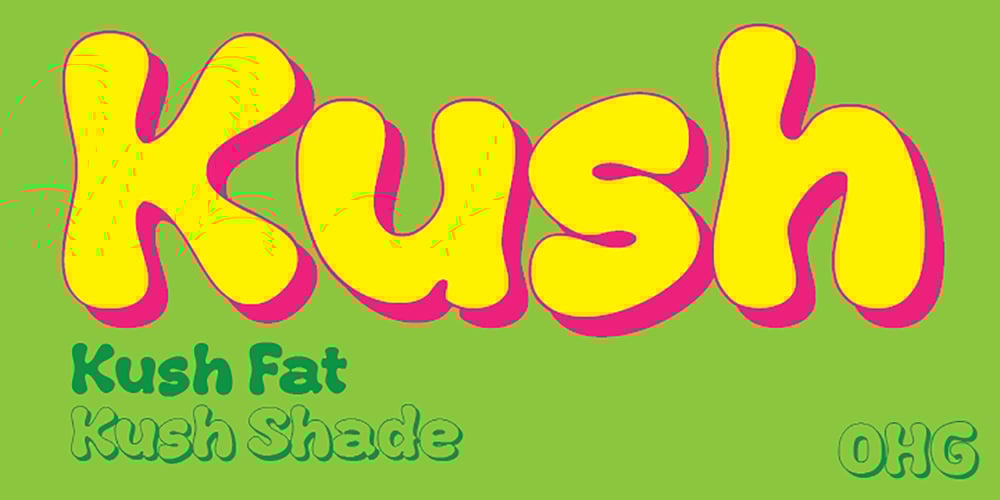
Kush
Kush font
Kush Font Family was designed by Russell A. McGorman and published by Our House Graphics. Kush contains 2 styles and family package options. Kush is what happens when you let your fonts sit around watching cartoons and eating cake and ice-cream all day�When their vectors are freed from all constraints and allowed to follow their bliss. Kush has filled its insides to just the other side of contentment and comes to you on a sugar high and with a head full of Looney Tunes. And… It�s two ply! A two-layered display face from Our House Graphics with a plush, organic feel, Kush has 370 glyphs, over two dozen standard and discretionary ligatures, stylistic alternates and a few surprises. Kush Fat and Kush Shade work well independently but together they become a two colour, two layer font. Simply type some text in Kush Shade, copy it and paste it back on top of your original text. Then change the top layer to Kush Fat and adjust the colours to your liking. For best results, use default settings for kerning and tracking (letter spacing).